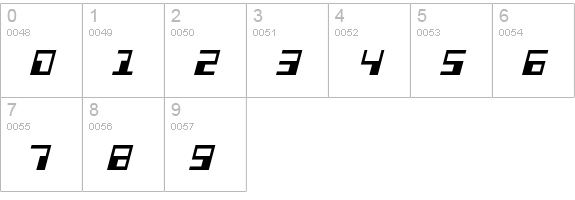
Phaser Bank Condensed Italic is a distinctive, condensed-width, italic variant in the Phaser typeface family \xE2\x80\x94 well suited to design and typography projects.
Introducing Phaser Bank Condensed Italic font, a sleek and modern typeface that exudes sophistication and style. Its elegant italicized design adds a touch of flair to any project, making it perfect for branding, headlines, and editorial use. With its condensed form, this font allows for efficient use of space without compromising on readability. The best part? Phaser Bank Condensed Italic font is available for free download at FontsMarket.com. This means you can elevate your designs with this high-quality font without breaking the bank. Don't miss out on the opportunity to enhance your projects with the unique charm of Phaser Bank Condensed Italic font. Download it today and take your designs to the next level!